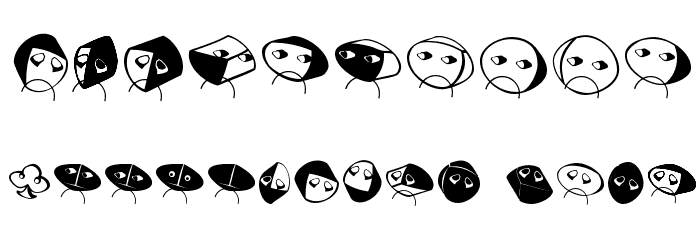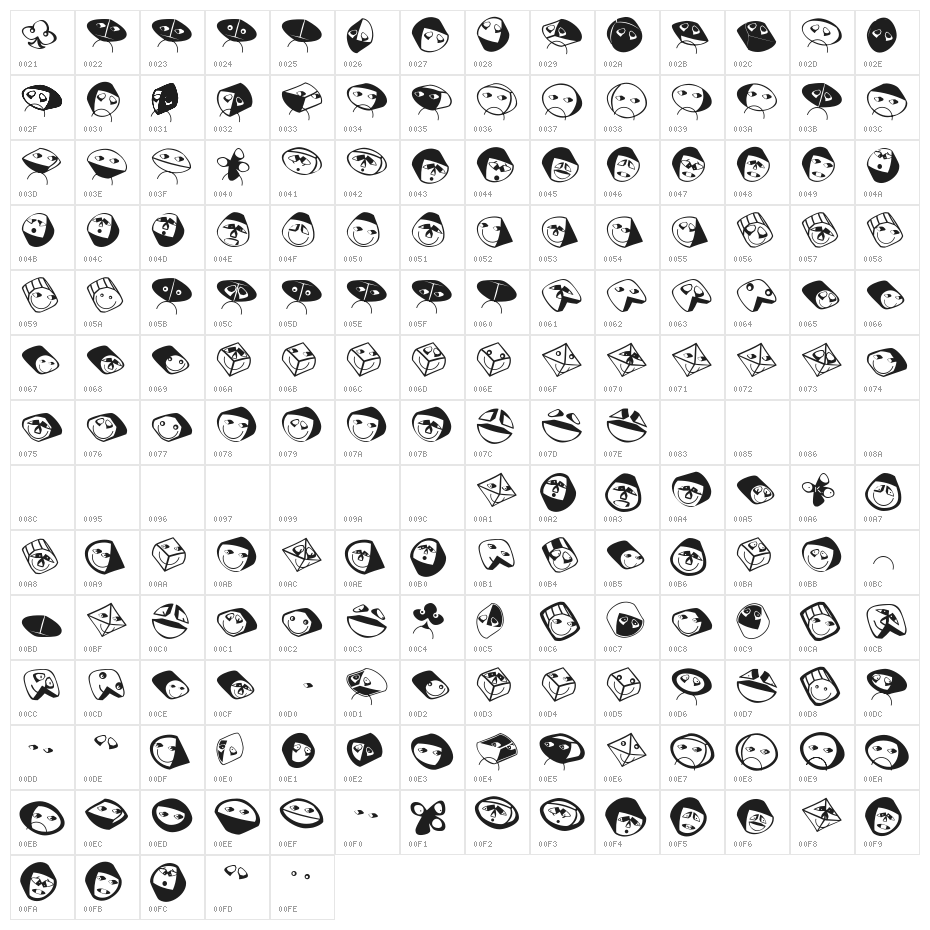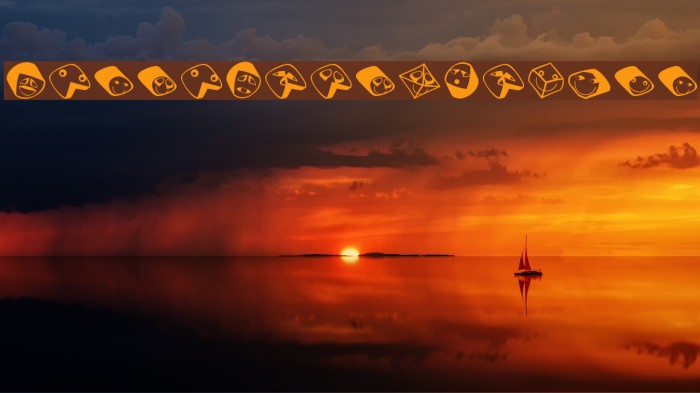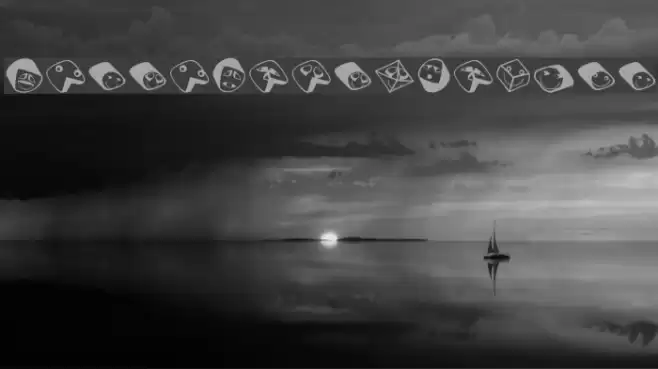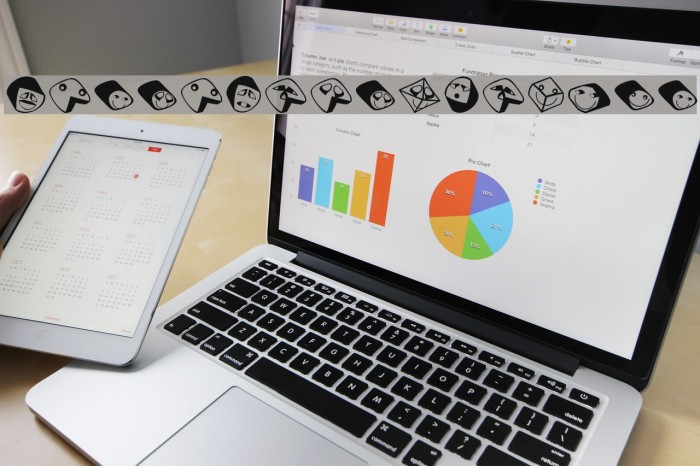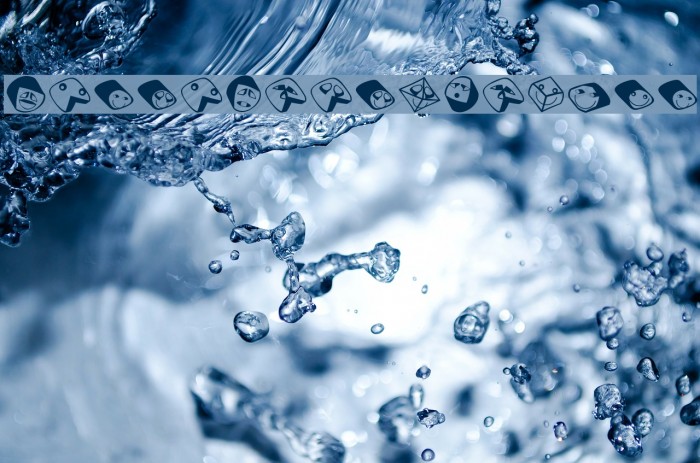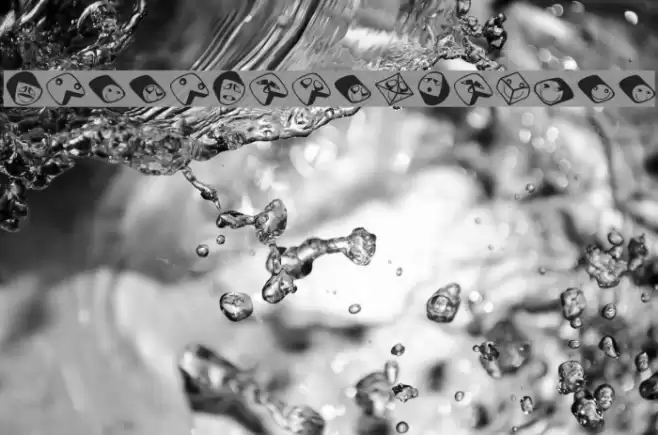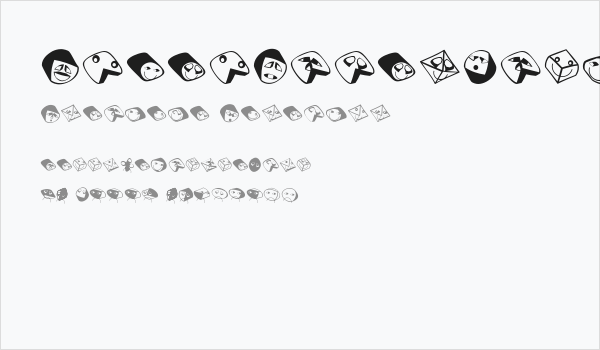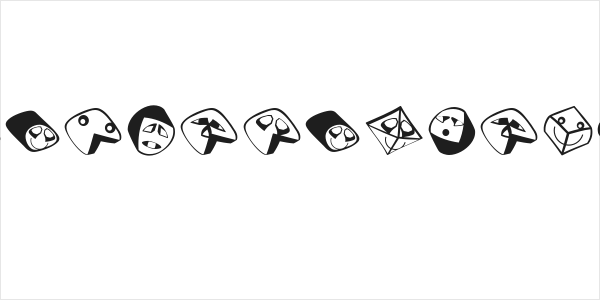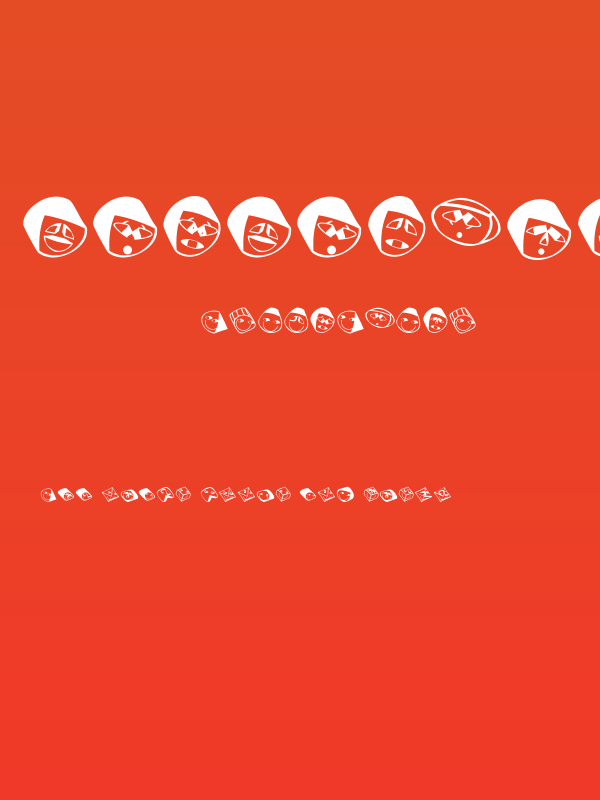
EdgedFacesKantig Font
EdgedFacesKantig Description
This is not a valid font. The image contains a series of abstract, cartoon-like faces with various expressions and geometric shapes. Each character is represented by a unique face design, incorporating elements such as triangles, circles, and squares. The style is playful and artistic, focusing on visual expression rather than traditional typographic elements.
| Use Case | Graphic elements, Illustrations |
| Proposed Projects | This design could be used for creative projects such as children's books, educational materials, or playful graphic design elements. |